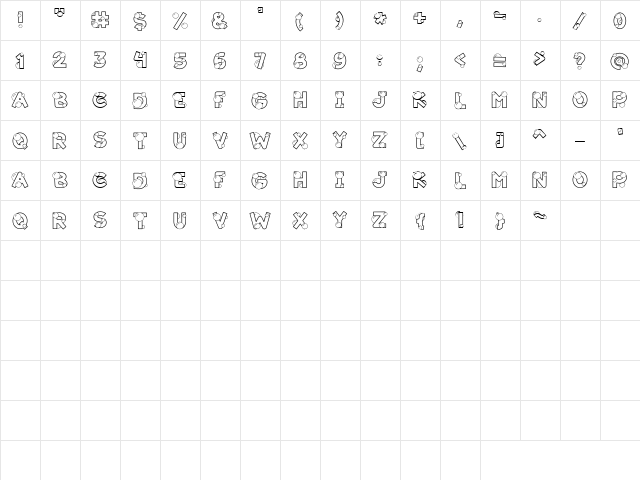
LD Double Bubble Regular
Design Context for LD Double Bubble Typeface
LD Double Bubble trades formality for fun, with bouncy, characterful letterforms that bring warmth and energy to any project.
Font Pairing: Pairs well with a rounded or humanist sans for body copy, maintaining the friendly tone without relying on LD Double Bubble to carry extended reading.
Pro Tip: Avoid using LD Double Bubble for long passages of text — it works best for headlines, labels, and short calls to action.